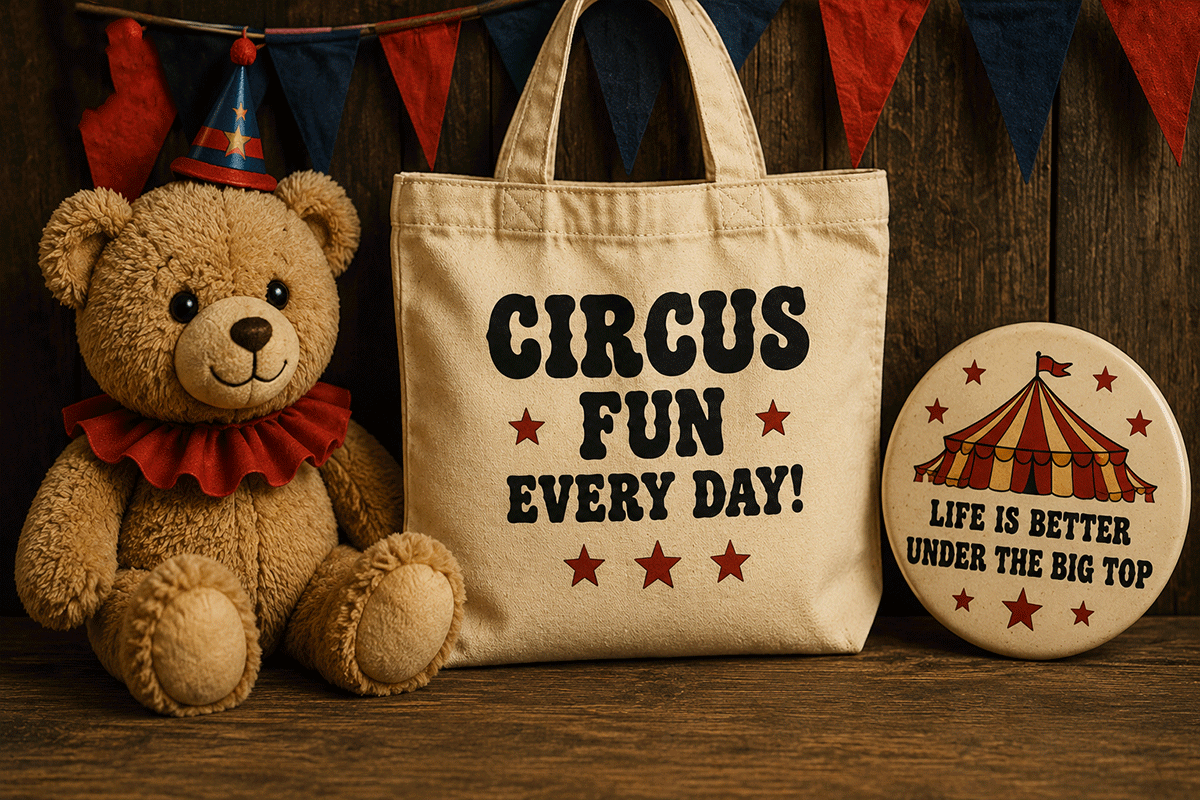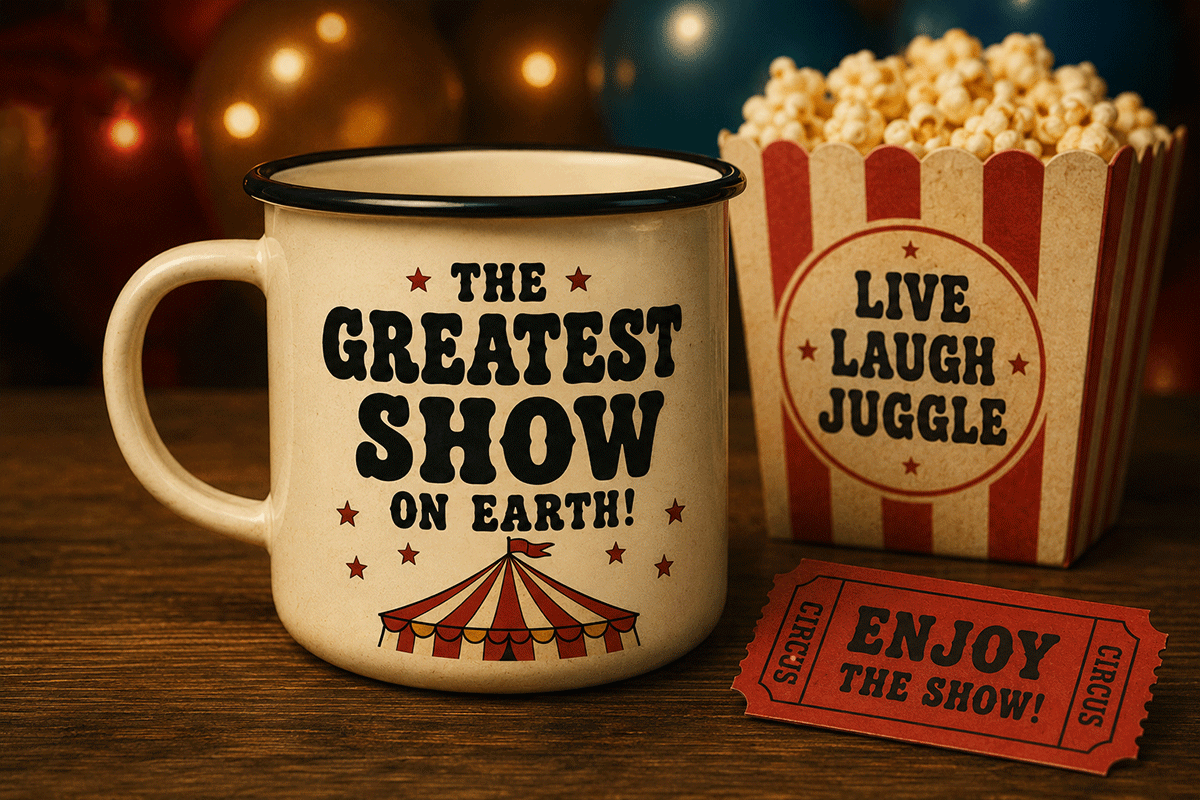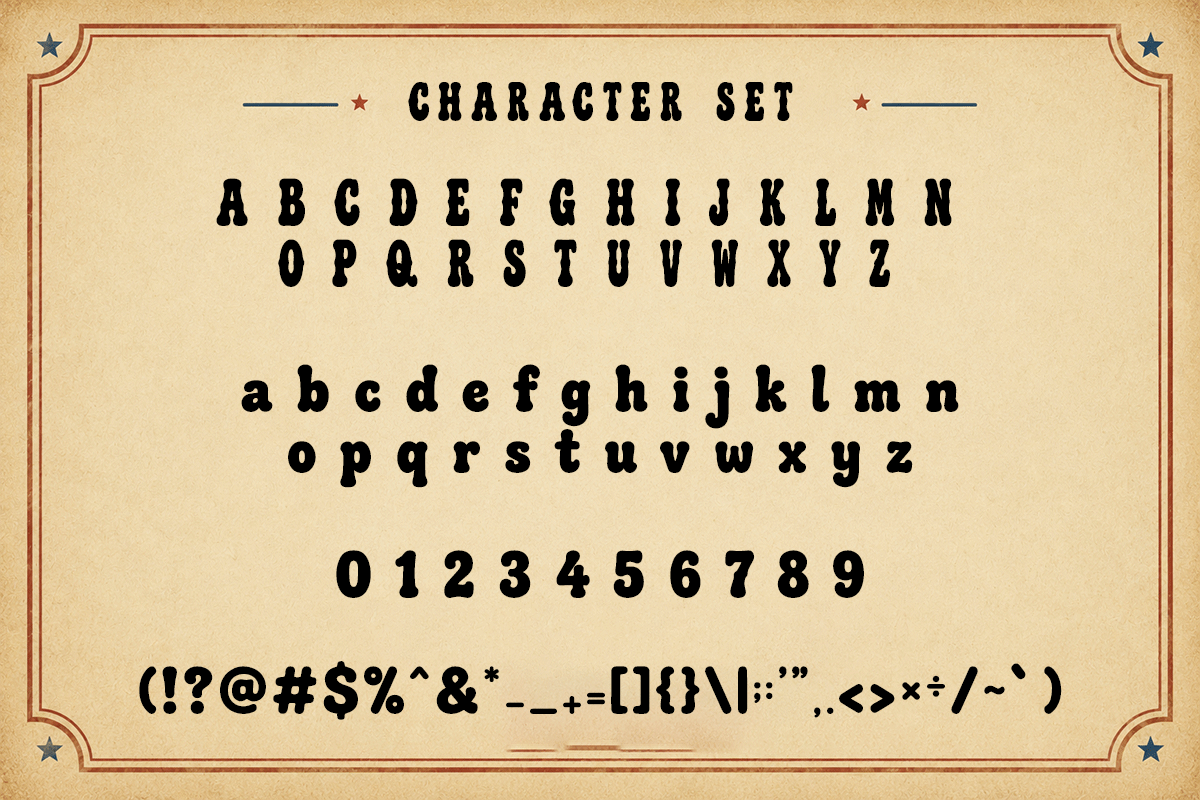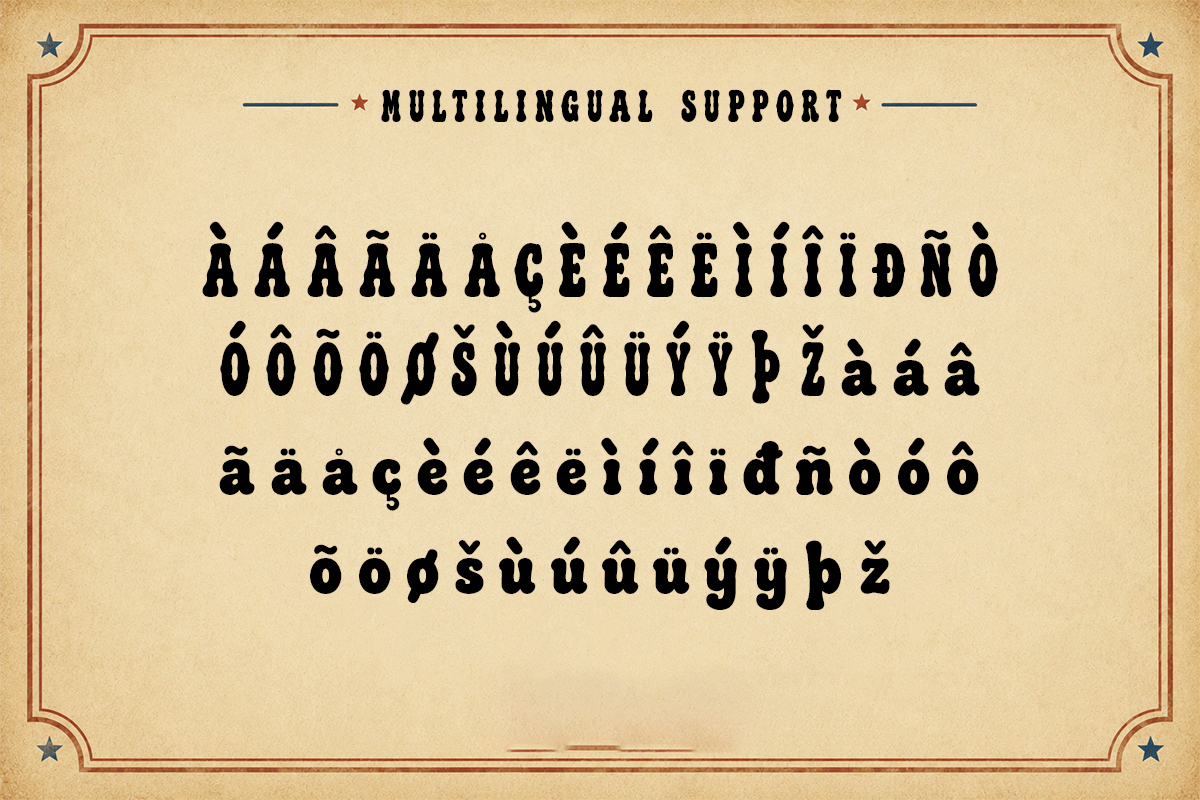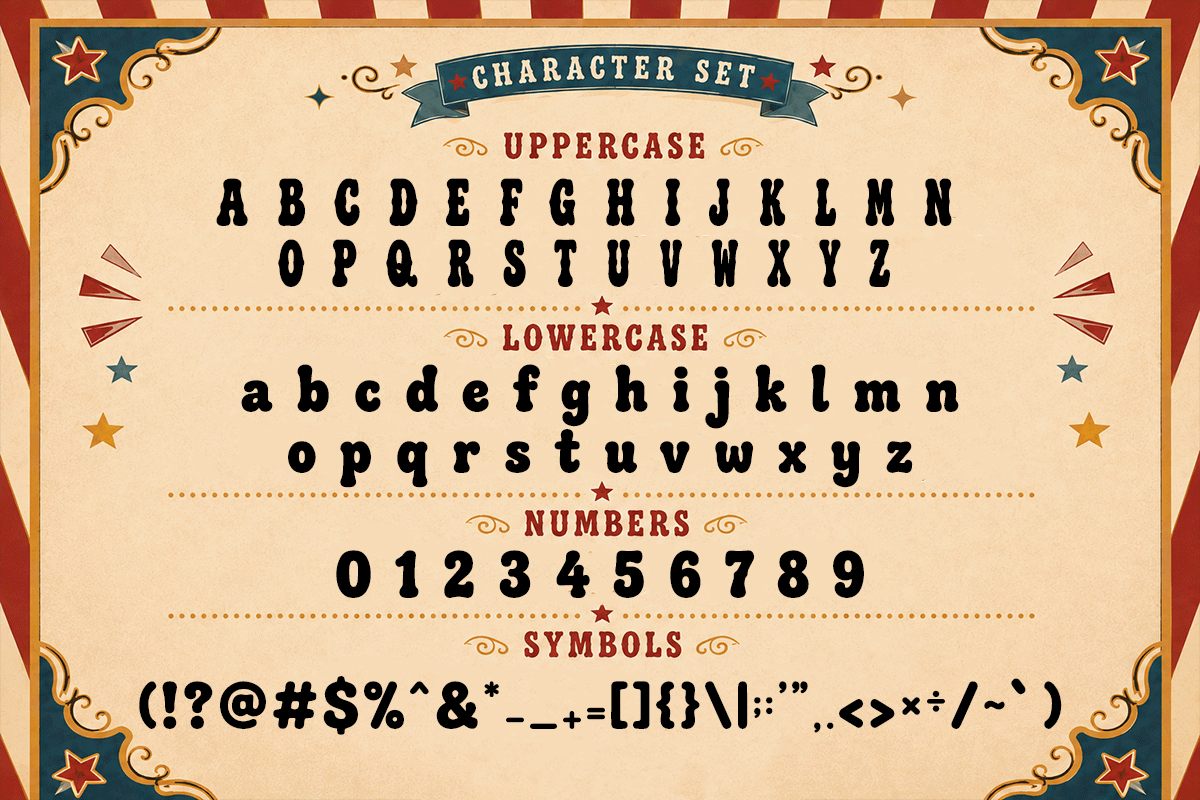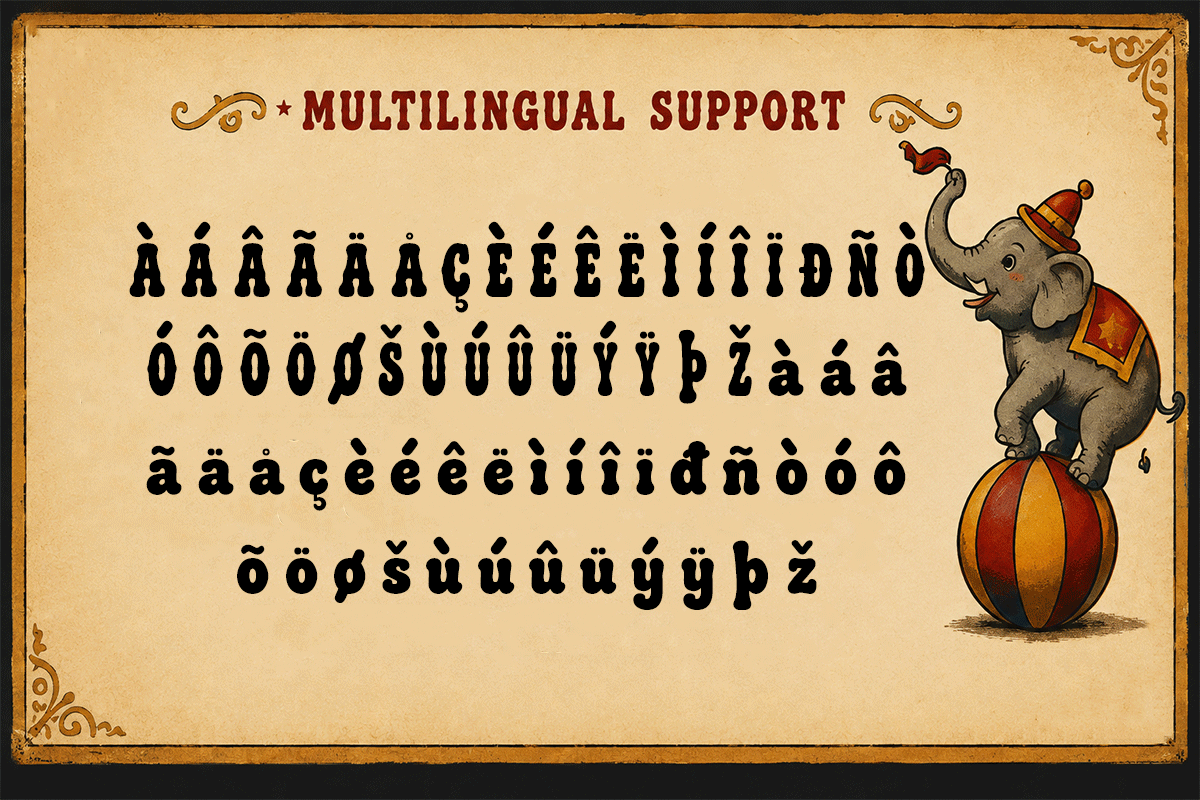
Big Top Circus A Modern Vintage Display Font is a bold vintage display font inspired by classic circus posters, carnival signs, and old-fashioned showmanship. Its chunky letterforms, playful curves, and slightly irregular shapes give every word a strong personality filled with nostalgic charm.
Designed to feel fun, theatrical, and attention-grabbing, Big Top Circus A Modern Vintage Display Font captures the excitement of colorful tents, glowing marquees, midway attractions, and spectacular performances. Its distinctive silhouette makes it especially effective for large headlines and statement typography.
Big Top Circus A Modern Vintage Display Font is perfect for posters, event branding, carnival graphics, packaging, T-shirts, children’s designs, book covers, restaurant signage, retro merchandise, stickers, invitations, and entertainment-themed projects.
Inspired by the golden age of traveling circuses and vintage fairground artwork, Big Top Circus A Modern Vintage Display Font turns ordinary words into a show-stopping centerpiece.
Perfect for: